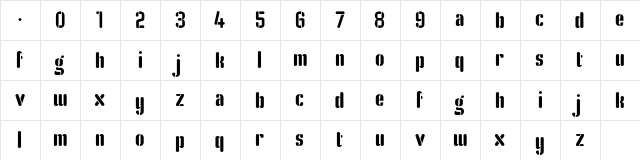
Wild Cat Stencil Regular
Design Context for Wild Cat Stencil Typeface
Wild Cat Stencil borrows the utilitarian aesthetic of stencil lettering, with its characteristic cutaways and no-frills construction lending an industrial edge.
A strong choice for packaging that needs edge, warehouse aesthetics, and rough-and-ready visual identities.
Pro Tip: Use Wild Cat Stencil at large sizes on packaging, posters, or apparel where the stencil cutaways read clearly. Avoid small sizes where those gaps become visual noise.